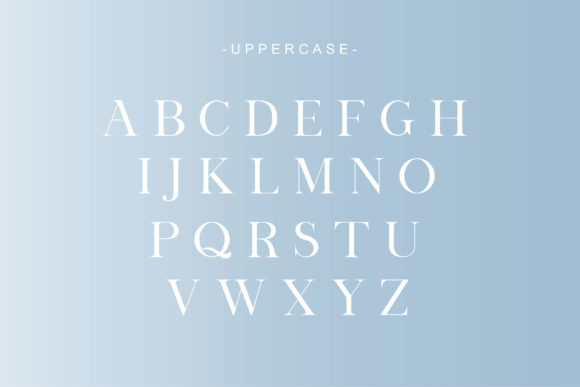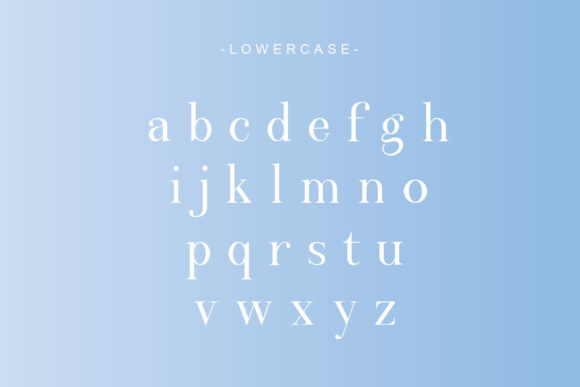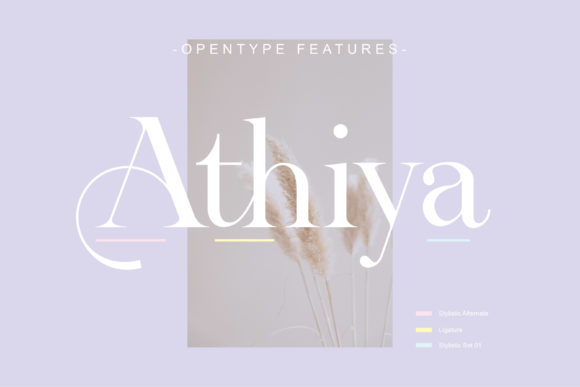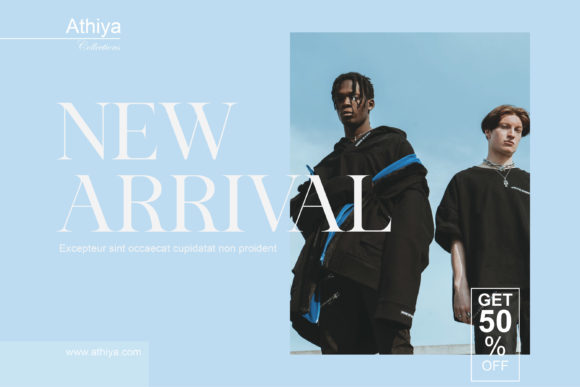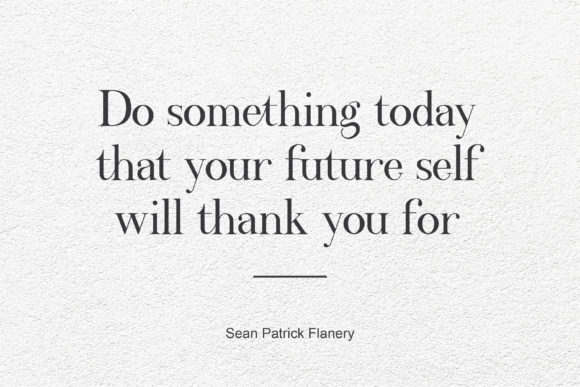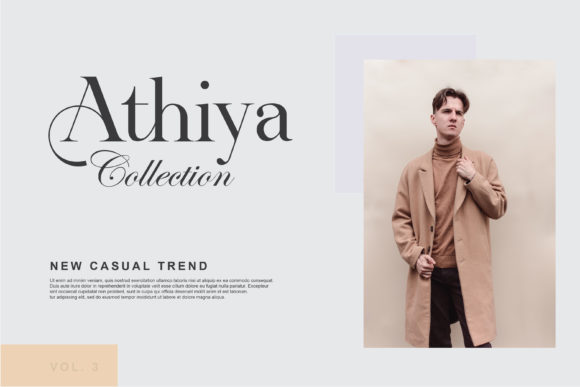
Athiya Font: Elevate Your Branding and Logo Design with Elegance
In the world of design, fonts play a crucial role in conveying the tone and personality of a brand. For designers and crafters seeking to add a touch of luxury and sophistication to their projects, the Athiya Font is an excellent choice. This elegant serif font is designed to bring a sense of refinement and style to branding and logo design projects, making it an ideal addition to any design arsenal.
What Makes Athiya Font Stand Out?
Athiya Font is not just another serif font; it’s a carefully crafted typeface that exudes elegance and luxury. Its intricate details and classic design make it perfect for projects that require a high level of sophistication. Whether you’re working on a logo design, branding project, or any other creative endeavor, Athiya Font is sure to make a lasting impression.
One of the standout features of Athiya Font is its PUA (Private Use Area) encoding. This means that users can access all the amazing glyphs and ligatures with ease, allowing for greater flexibility and creativity in design projects. With PUA encoding, designers can effortlessly navigate the font’s extensive character set, ensuring that their designs are both visually appealing and highly customizable.
Key Features of Athiya Font
- Elegant Serif Design: Athiya Font boasts a classic serif design that adds a touch of sophistication to any project.
- Luxury and Style: Perfect for branding and logo design projects that require a high level of elegance and refinement.
- PUA Encoded: Easy access to all glyphs and ligatures, making it simple to customize and adapt to various design needs.
- Highly Versatile: Suitable for a wide range of design projects, from logos and branding to packaging and editorial design.
Athiya Font offers numerous benefits for designers and crafters looking to elevate their projects. Its elegant design and PUA encoding make it an excellent choice for:
- Branding and Logo Design: Create memorable and sophisticated logos that leave a lasting impression.
- Editorial Design: Add a touch of luxury to magazines, newspapers, and digital publications.
- Packaging Design: Elevate product packaging with a font that exudes elegance and refinement.
- Digital Design: Perfect for use in digital platforms, including websites, social media, and advertising.
Tips for Using Athiya Font Effectively
To get the most out of Athiya Font, consider the following tips:
- Pair with Complementary Fonts: Combine Athiya Font with sans-serif fonts for a striking contrast.
- Experiment with Ligatures: Take advantage of the font’s ligatures to add a unique touch to your designs.
- Adjust Font Sizes: Use varying font sizes to create visual hierarchy and emphasize key design elements.
Athiya Font is a versatile and elegant serif font that can elevate any design project. Its PUA encoding and extensive character set make it an excellent choice for designers and crafters seeking to add a touch of luxury and sophistication to their work. Whether you’re working on branding, logo design, or any other creative project, Athiya Font is sure to deliver exceptional results.